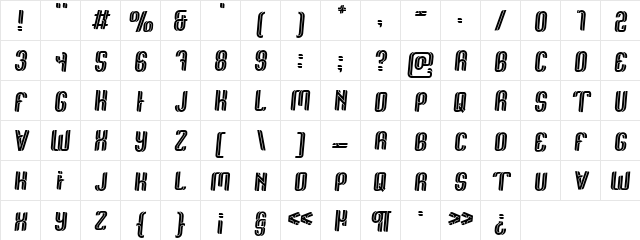
Reeford Italic_DEMO Italic Free Font
Reeford Italic_DEMO Italic
Foundry: MysticalType Studio Co.
Designer: Candi Erwanto
Design Context for Reeford Italic_DEMO
Reeford Italic_DEMO is a composed and adaptable typeface that performs quietly and consistently across a wide range of design contexts. The slanted form adds forward momentum and visual energy.
Pro Tip: Use Reeford Italic_DEMO for emphasis, pull quotes, and subheadings where its slanted energy can add rhythm to the layout.